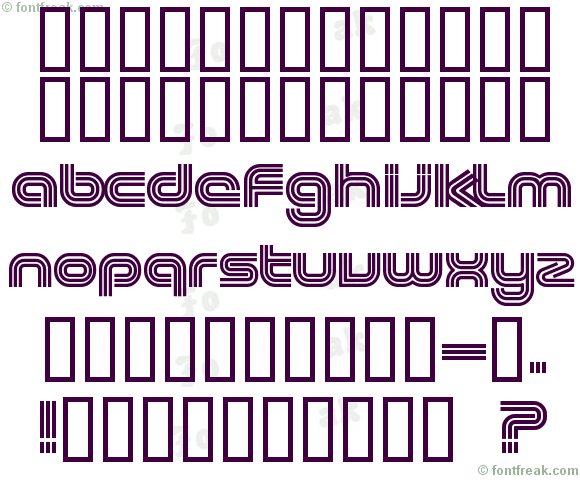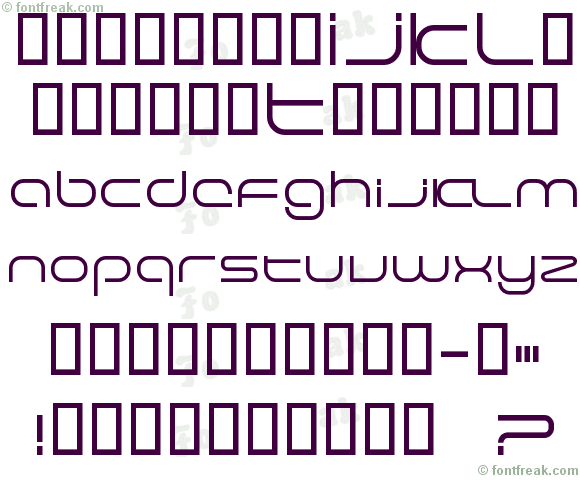
Excellence LightExtended
Excellence Extended
About Excellence
The Excellence font, crafted by Axel Pfaender in 1997, is a striking display typeface that captures attention with its unique visual appeal. This freeware font exemplifies a modern geometric style, characterized by its extended forms and distinct stroke weight. The clean lines and uniform spacing create a balanced appearance, making it suitable for a range of design applications. The font features subtle decorative elements that add a layer of sophistication without overwhelming the viewer, allowing the text to stand out in various contexts.
Ideal for contemporary graphic design, the Excellence font is particularly effective in use cases such as eye-catching movie posters, vibrant restaurant menus, and dynamic branding for small businesses. Its bold presence makes it a fantastic choice for event promotions and product packaging, where grabbing the audience's attention is paramount. Additionally, content creators will find that this font enhances the visual narrative of online articles or social media graphics, providing a modern touch that resonates with viewers.
What sets the Excellence font apart is its ability to merge simplicity with a distinctive style, making it a standout choice for anyone looking to make a memorable impact. Whether you’re designing for print or digital media, the Excellence font free download offers a valuable resource for enhancing your creative projects, ensuring that your typography is both stylish and effective.